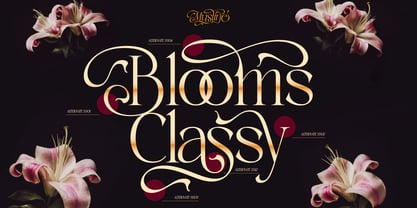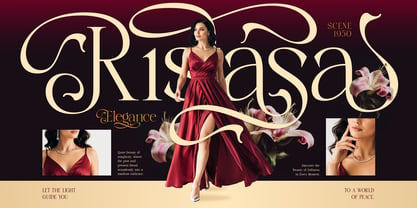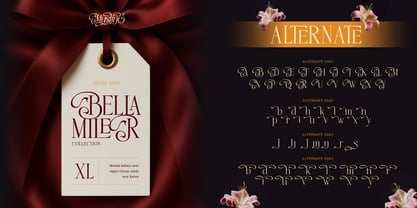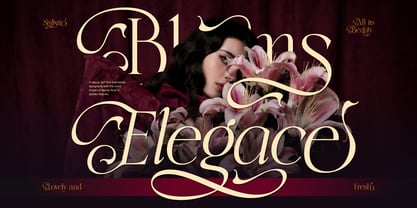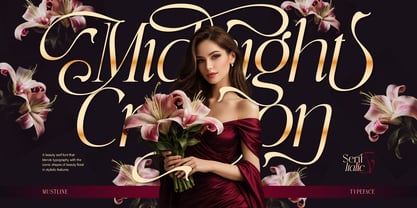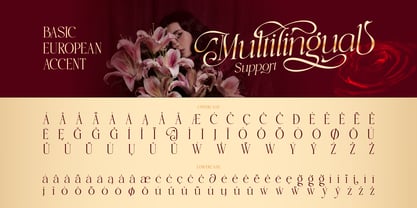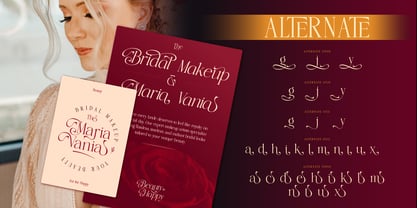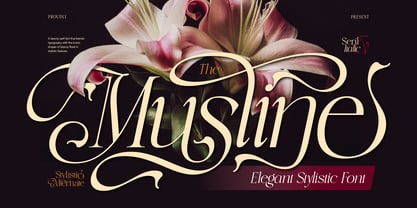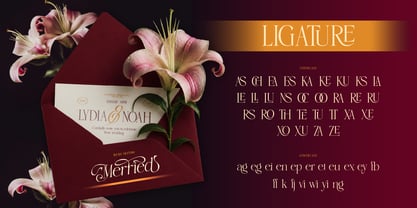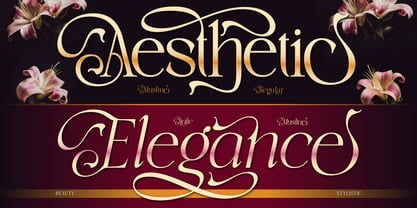
Musline
La familia tipográfica Musline fue diseñada por Eric Kurniawan y publicada por Burntilldead. Musline contiene 2 estilos y opciones de paquete familiar. Más información sobre esta familia
Musline, an elegant stylistic serif font designed to bring timeless beauty and artistic sophistication into your designs. With its graceful curves, refined contrast, and stunning swashes, Musline blends classic serif structure with expressive decorative details.
This font is perfect for creating luxurious and eye-catching typography—whether you're working on branding, fashion editorials, wedding invitations, or high-end packaging. Every letter is carefully crafted to give a smooth, stylish, and feminine touch that instantly elevates your design.
Musline comes with beautiful stylish alternates and ligatures, allowing you to create unique letter combinations and flowing typography with ease. From minimal elegance to dramatic headline looks, this font gives you full creative freedom.
Features: A - Z set (Uppercase & Lowercase), Number, Punctuation, Alternates, Ligatures, Multilingual